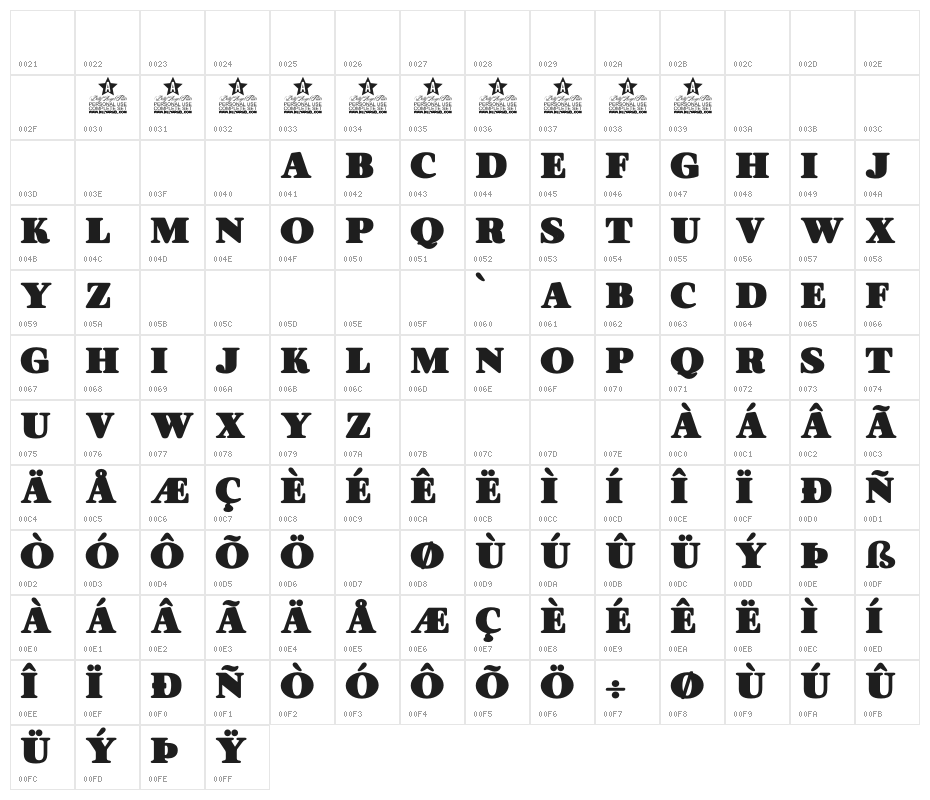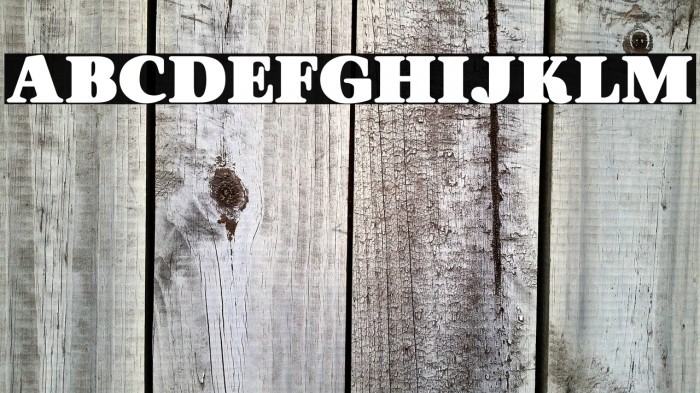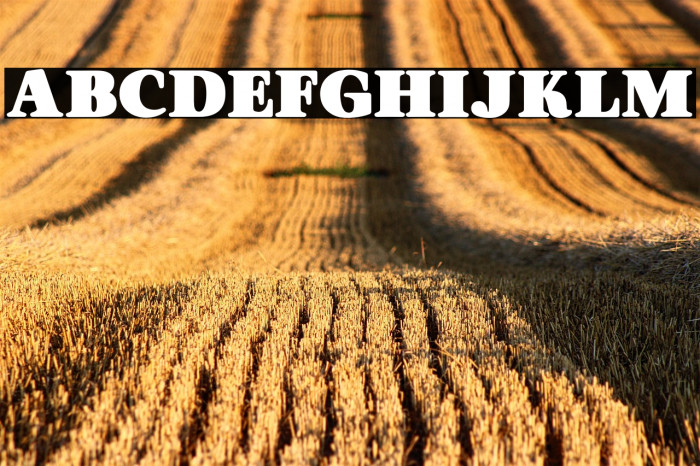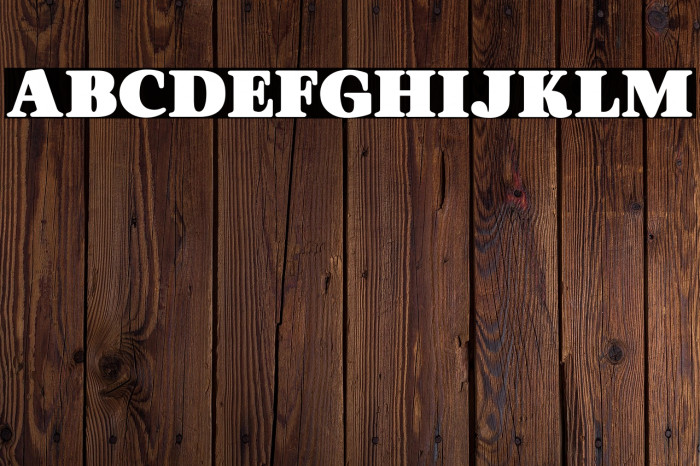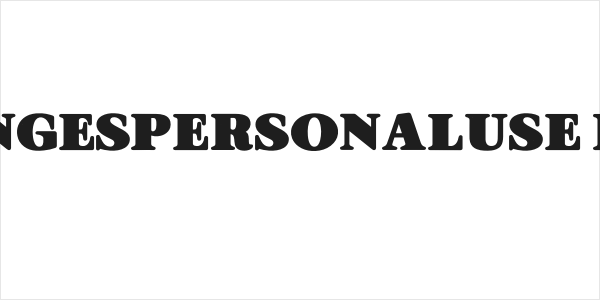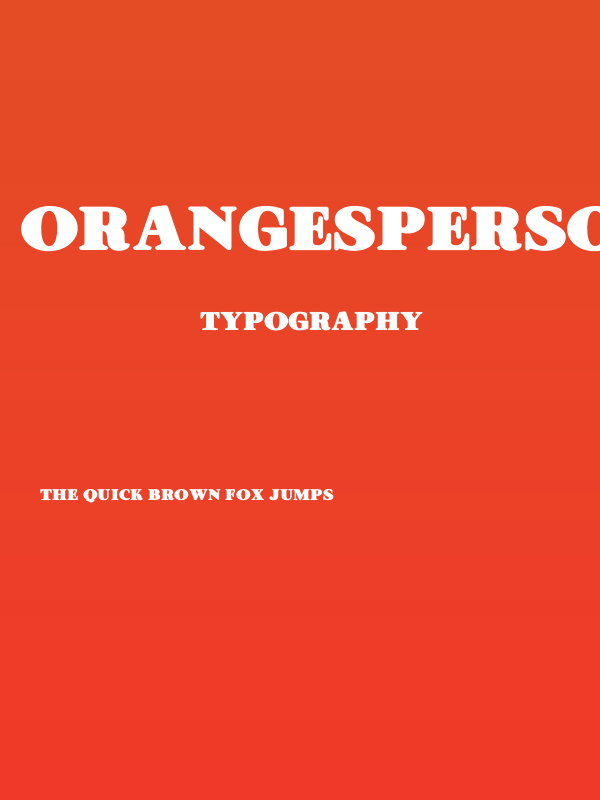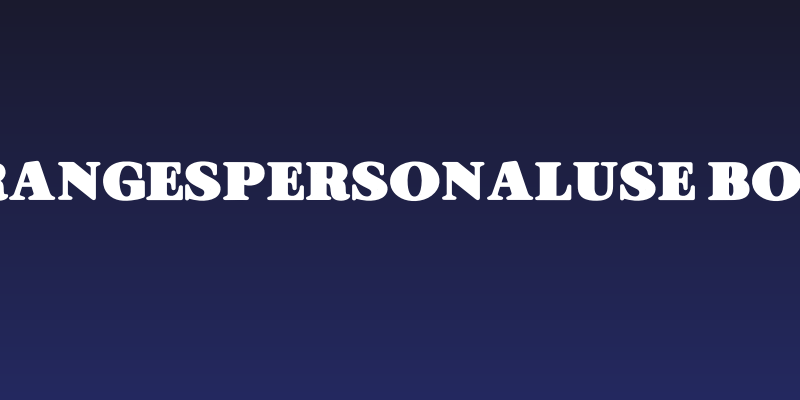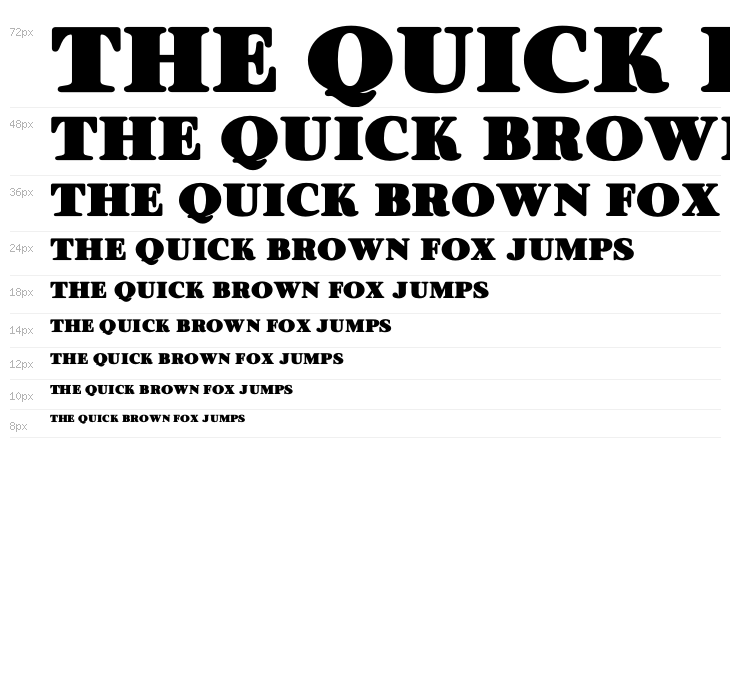
ORANGESPERSONALUSE-Bold Font
ORANGESPERSONALUSE-Bold Description
This font features bold, thick strokes with a strong presence, making it ideal for attention-grabbing headlines. The characters are uniformly wide, with a slight serif that adds a touch of classic elegance. The uppercase letters are prominent and well-defined, ensuring readability even at smaller sizes. The overall design is robust and impactful, suitable for projects that require a bold statement. The font's style is reminiscent of traditional serif fonts but with a modern twist, providing versatility in various design contexts.